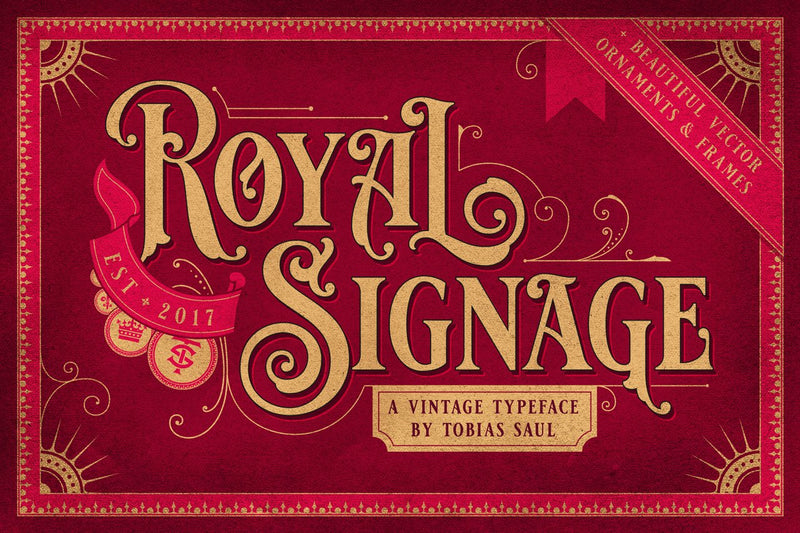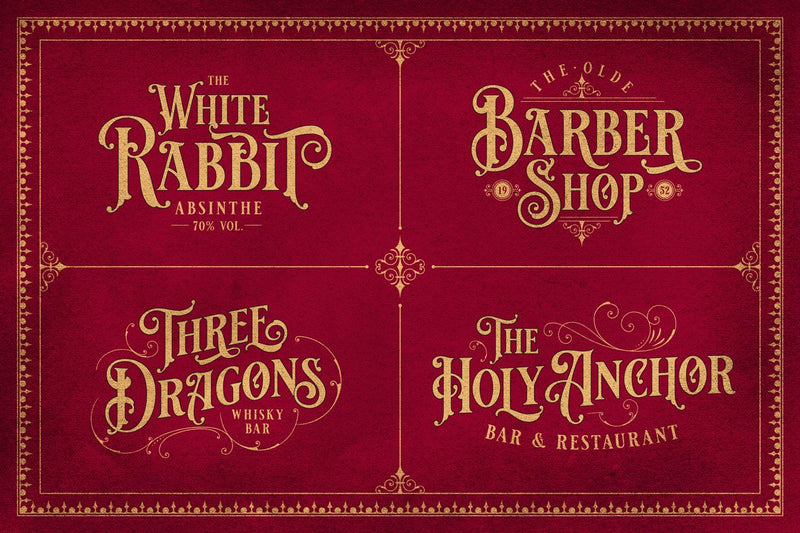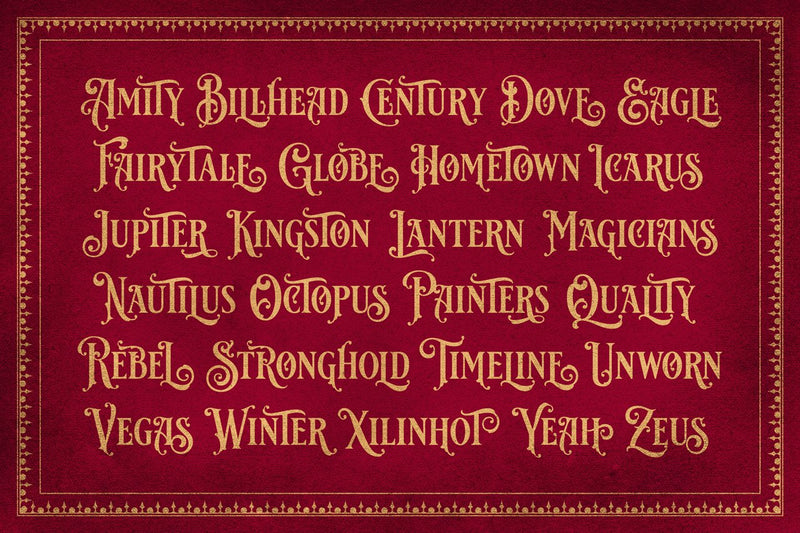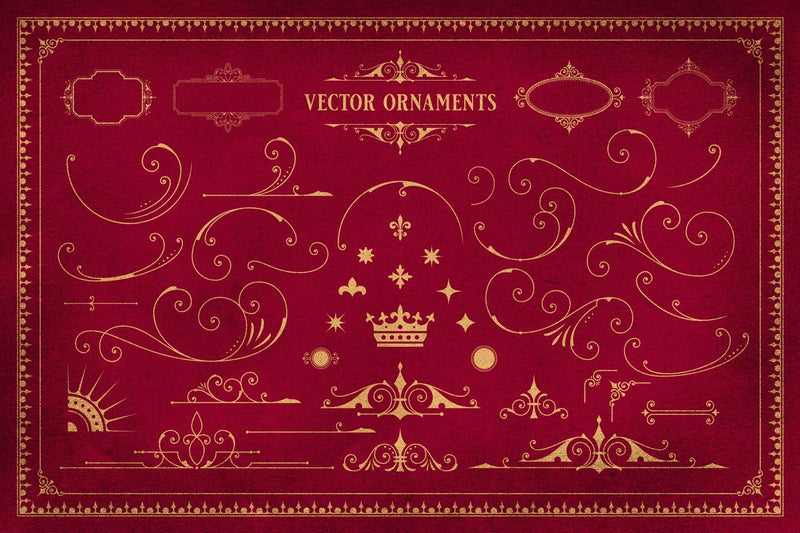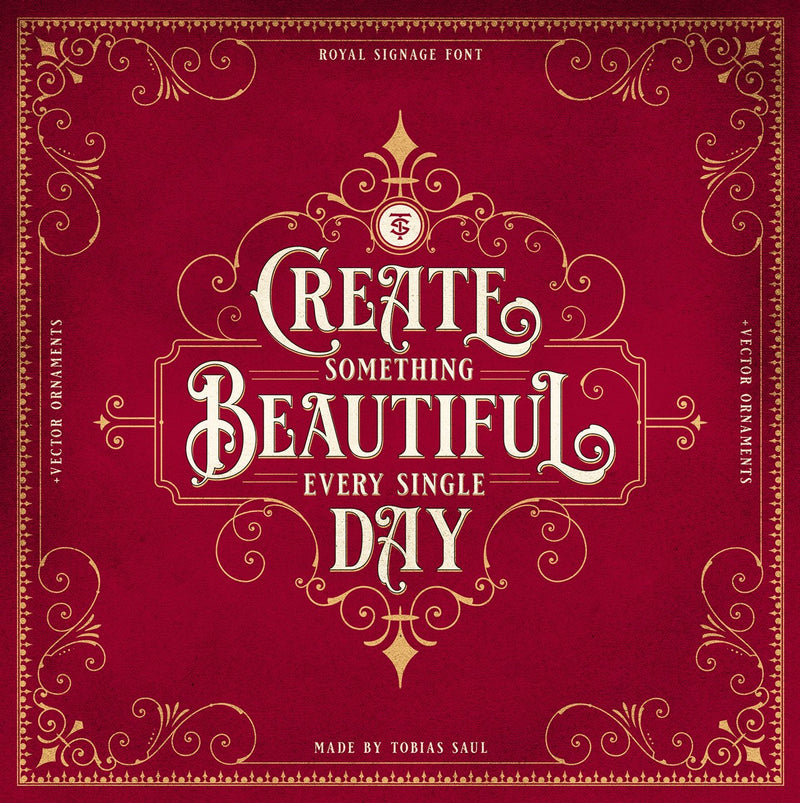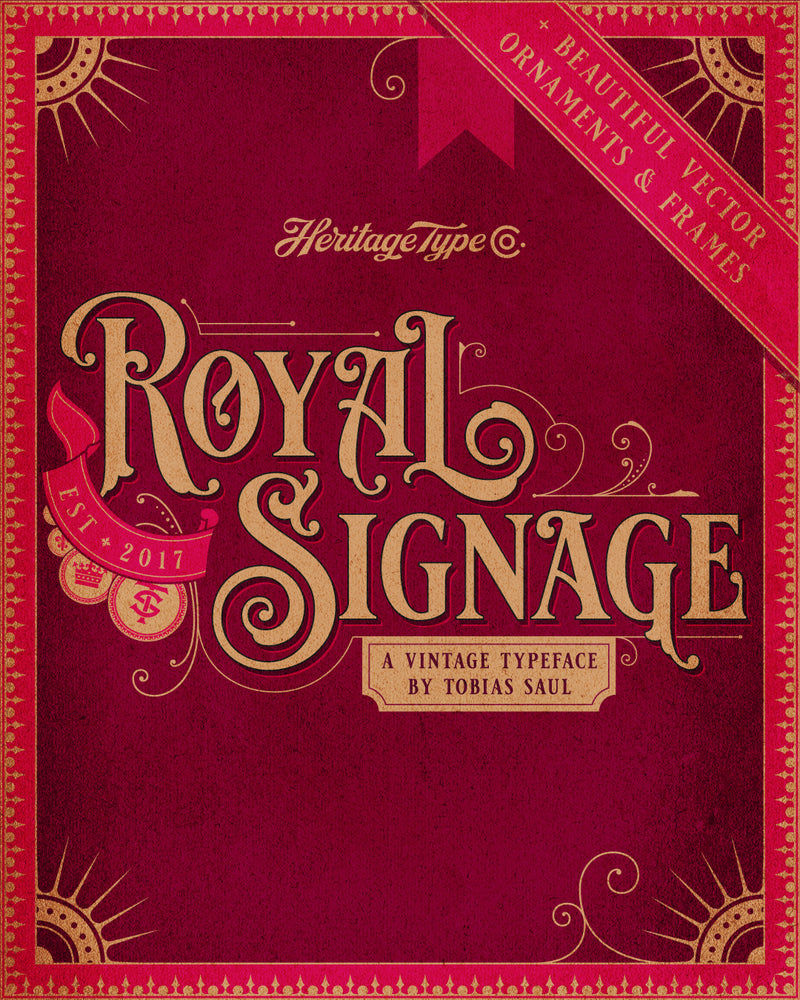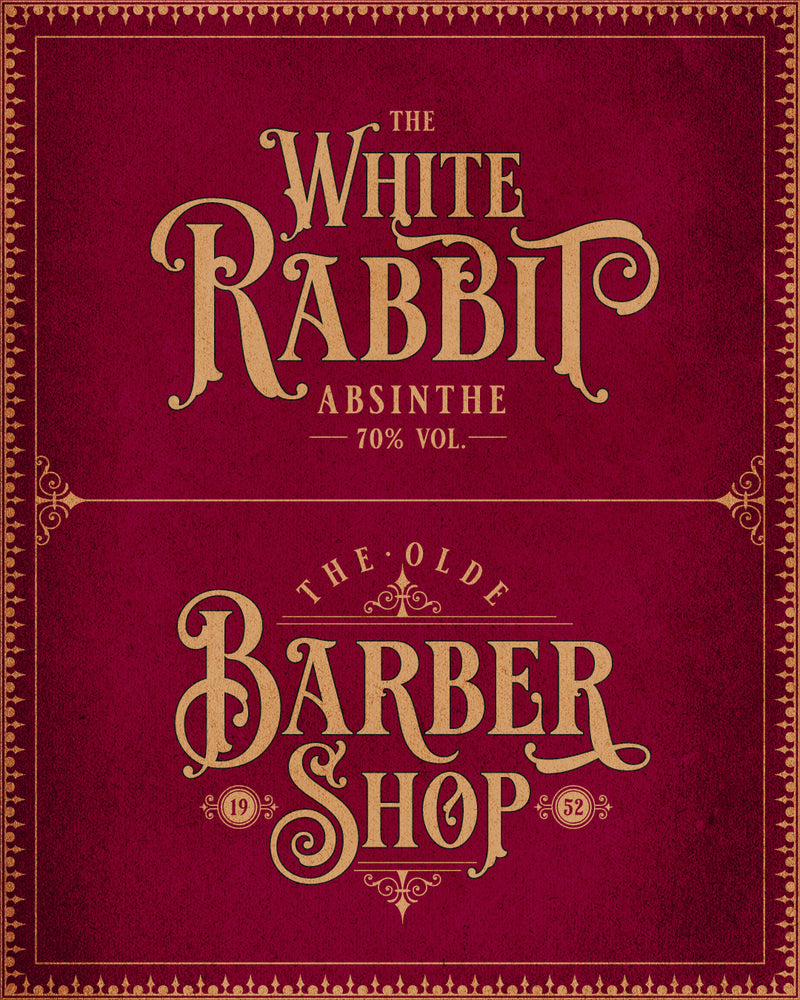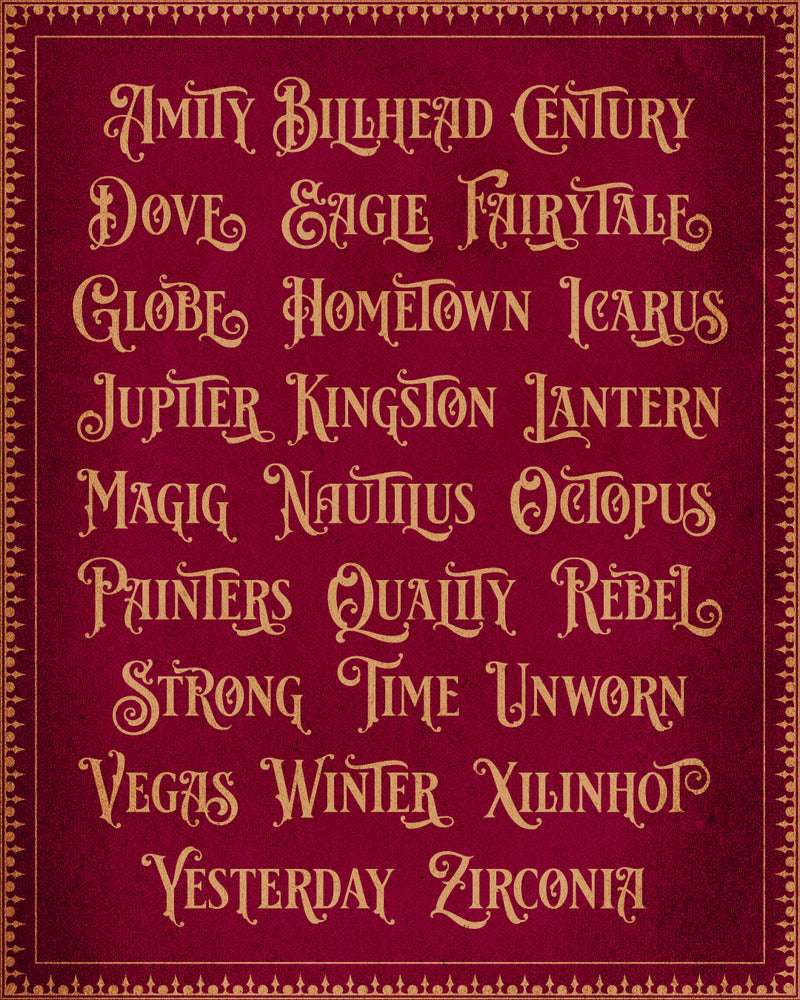
Royal Signage Typeface
Royal Signage is a Vintage Font inspired by beautiful vintage sign art and lettering. The font comes with special uppercase letters and 38 alternate characters to give your designs an elegant and artistic look. It is perfect for logo and packaging design, short phrases or headlines. Furthermore the product includes a set of over 40 vector ornaments and frames.
Font Features
- Character set A-Z with special uppercase letters
- Stylistic Alternates
- Numerals & Punctuation
- Accented Characters (West Europe)